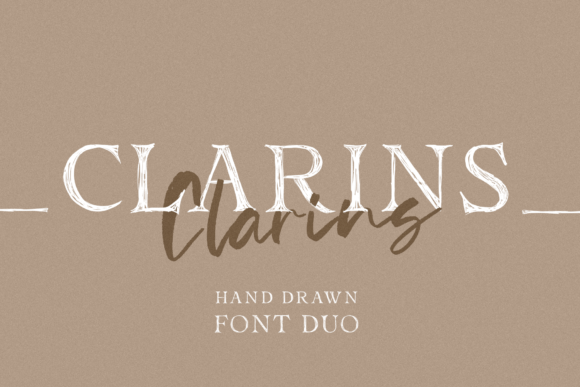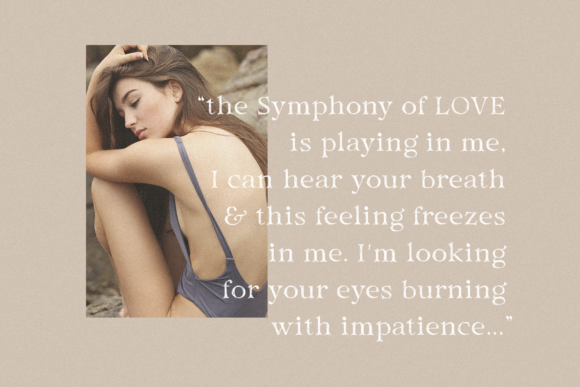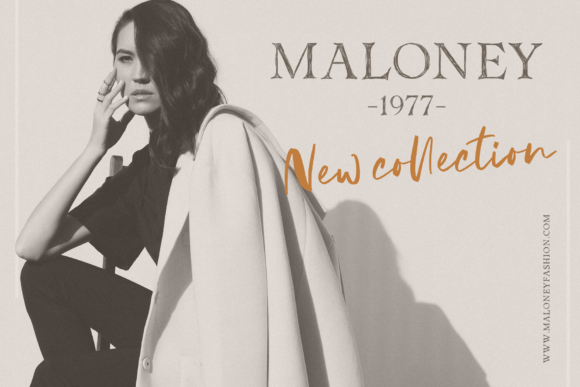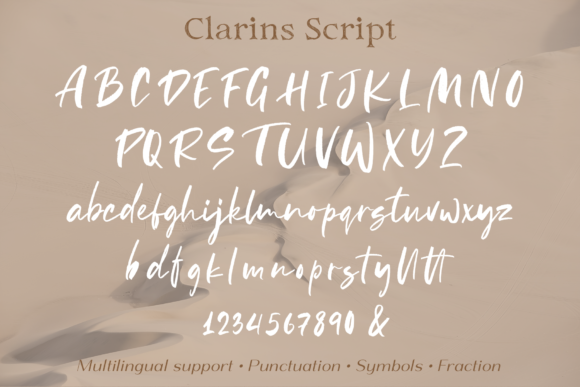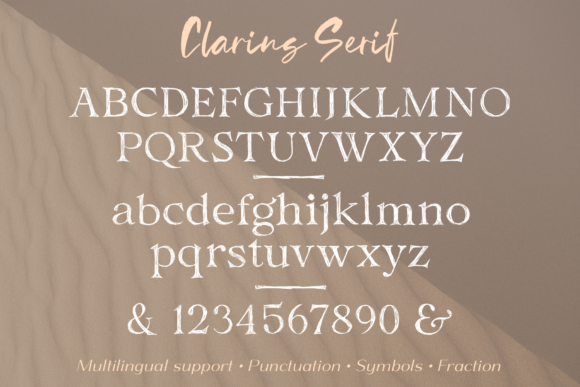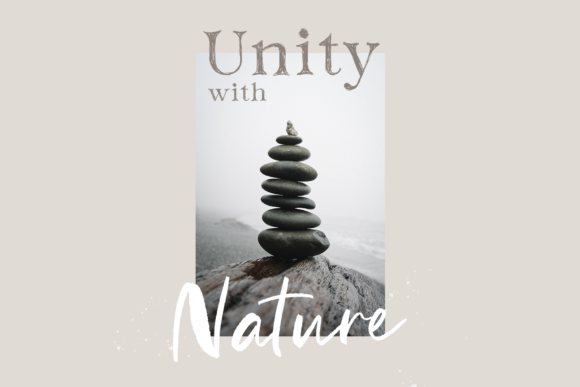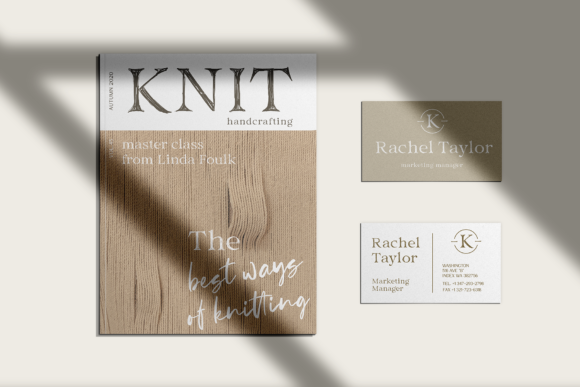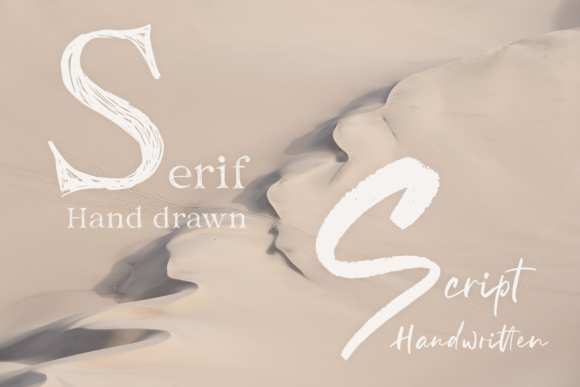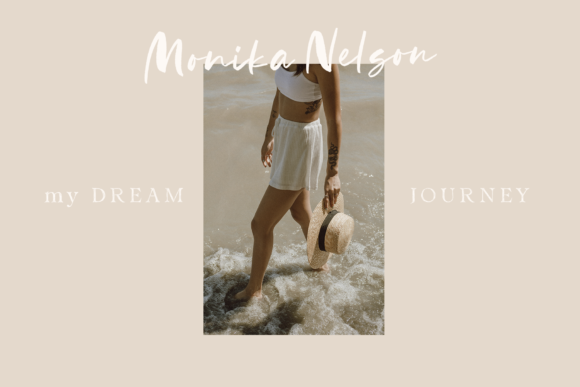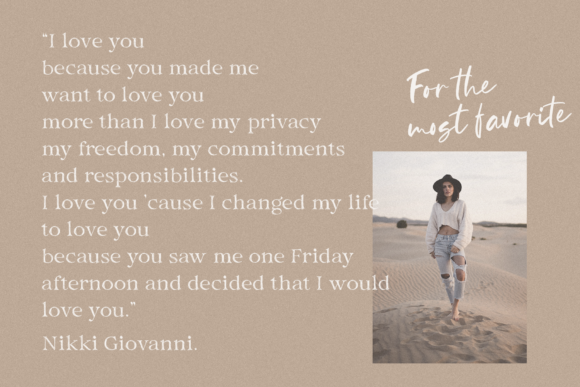
Clarins Font
About Clarins Font
Clarins is a beautiful duo font (script and serif). Masterfully designed to become a true favorite, this font has the potential to bring each of your creative ideas to the highest level!